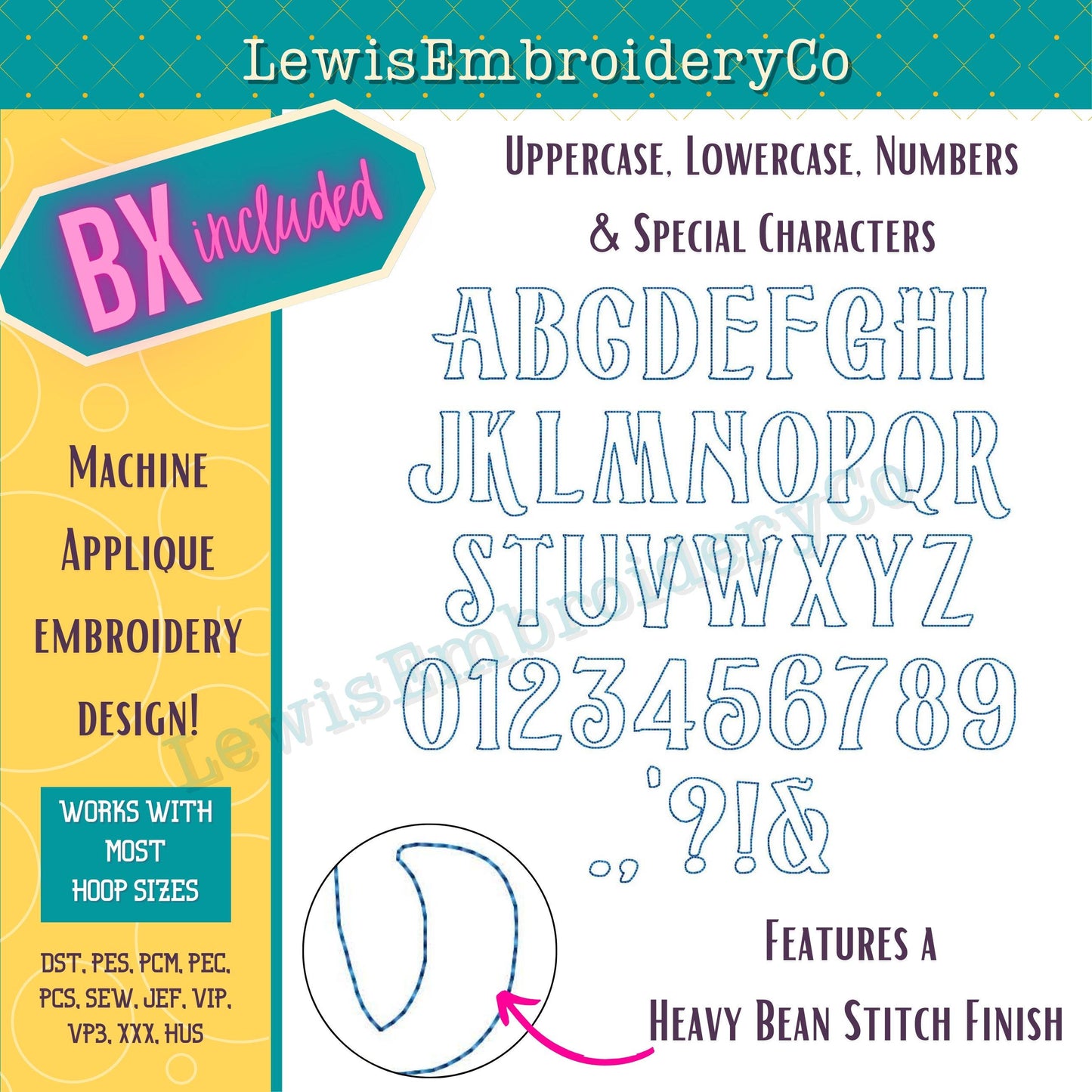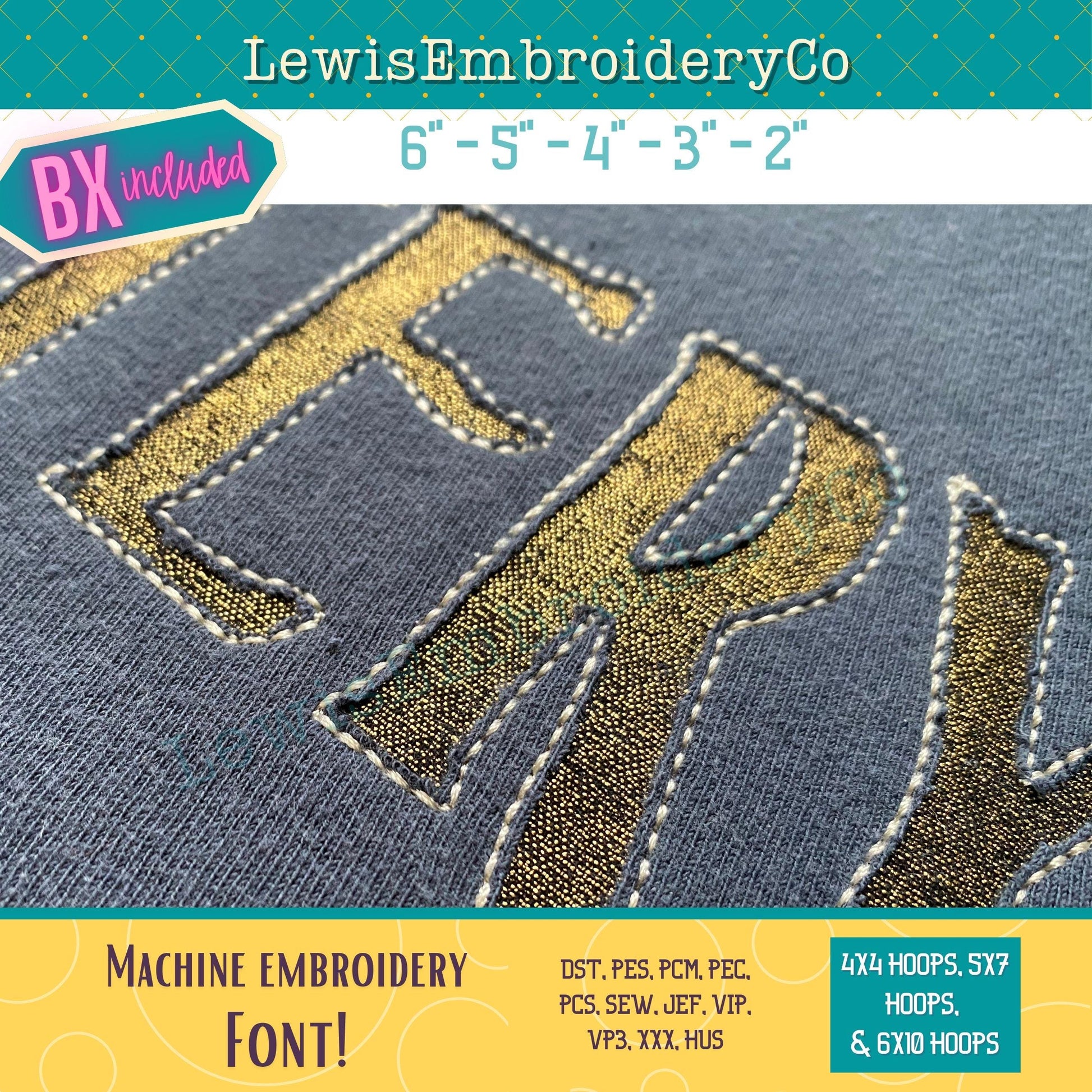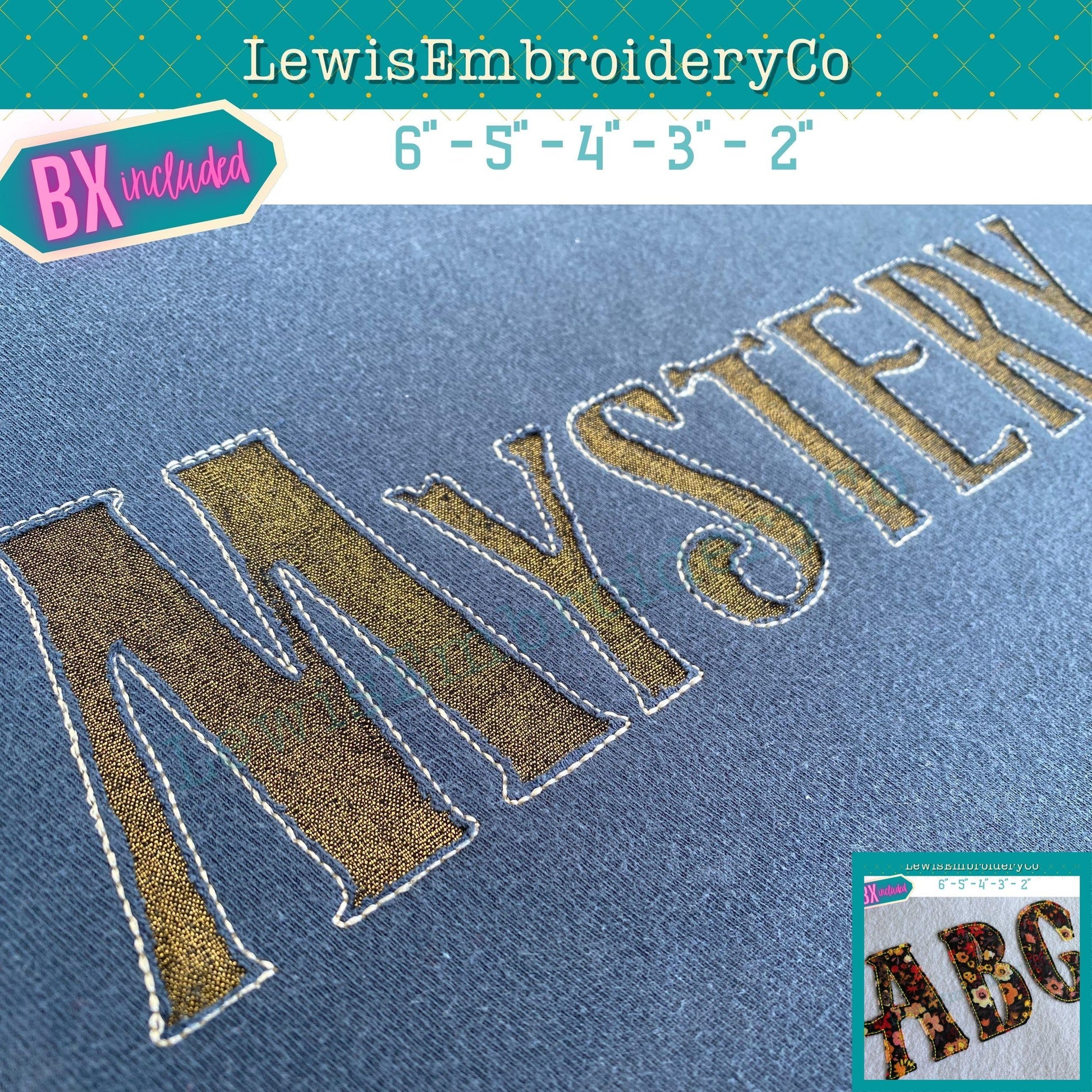
Reverse Applique, Strange, Machine Embroidery Font - With BX - (PDF Tutorial Included)
Reverse Applique Embroidery Font - Stranger Applique Font - Raw Edge Applique Alphabet - Bean Applique Embroidery Font - Mystery Font
This fun font will add a nice touch to any of your projects!